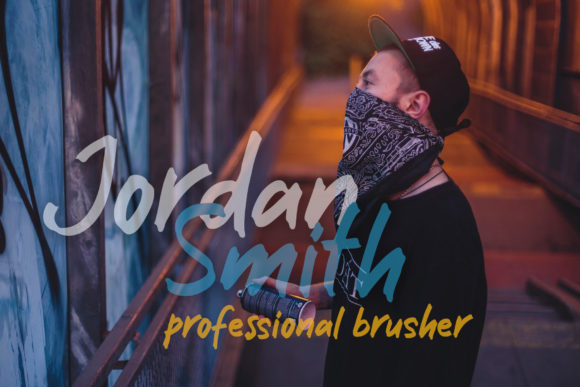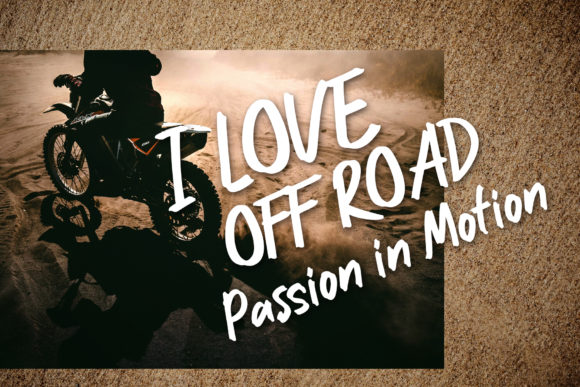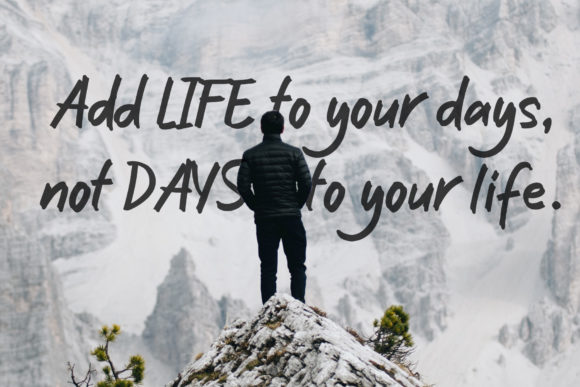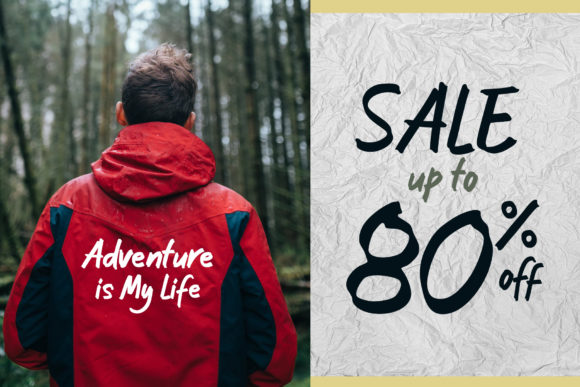
The Designer’s Delight: Della Vintta Font
I’ll never forget the time I was working on a project for a client who wanted a custom logo that screamed elegance and sophistication. As I scrolled through my font library, I couldn’t help but feel like something was missing. That’s when I stumbled upon Della Vintta, a sweet and unique display font that instantly caught my attention. In this article, I’ll share my experience with Della Vintta, its features, and how to make the most of it in your design projects.
An Honest Review of Della Vintta
What I Love About Della Vintta
- ✨ Unique and eye-catching design that’s perfect for making a statement
- ✅ Highly legible, even at smaller sizes
- 💫 Supports multiple languages and special characters
- 🎨 Versatile and can be used for a wide range of design projects, from logos to posters
While Della Vintta is an amazing font, there are a few things to keep in mind:
- ⚠️ May not be suitable for body text due to its display nature
- 🤔 Limited availability of certain characters, such as ligatures
The Backstory of Della Vintta
Della Vintta was designed by a team of talented typographers who wanted to create a font that would stand out in the world of design. Inspired by classic elegance and modern sophistication, Della Vintta is the perfect blend of old and new. Whether you’re a designer, crafter, or creative hobbyist, Della Vintta is sure to become a favorite in your font library.
Q: What type of projects is Della Vintta best suited for?
A: Della Vintta is perfect for display designs, such as logos, posters, and social media graphics.
Q: Does Della Vintta support OpenType features?
A: Yes, Della Vintta supports OpenType features, including glyphs, stylistic alternates, and ligatures.